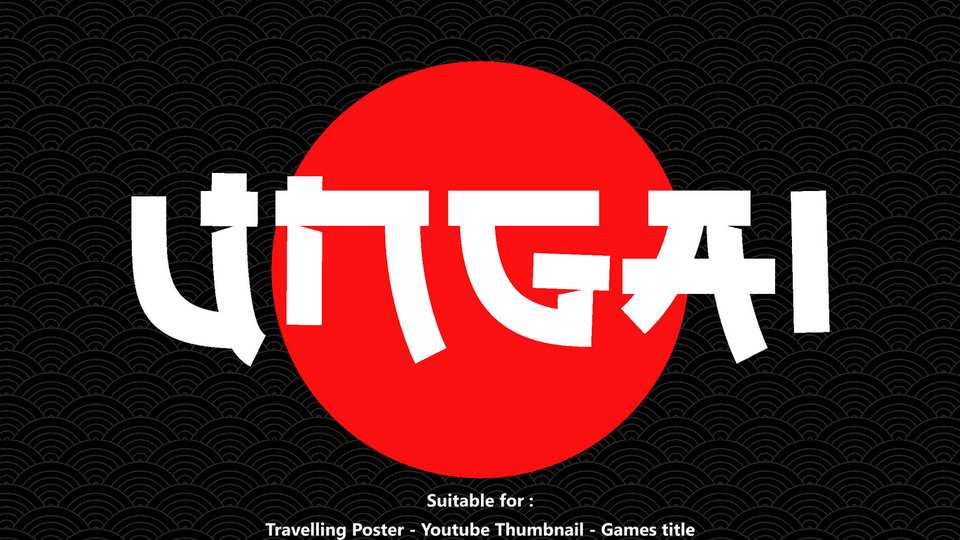
Download Ungai font, a decorative typeface that took katakana shape, and take it to the modern fast world. With cut out on the inner connection, emphasize the fast and full action world we’re facing.